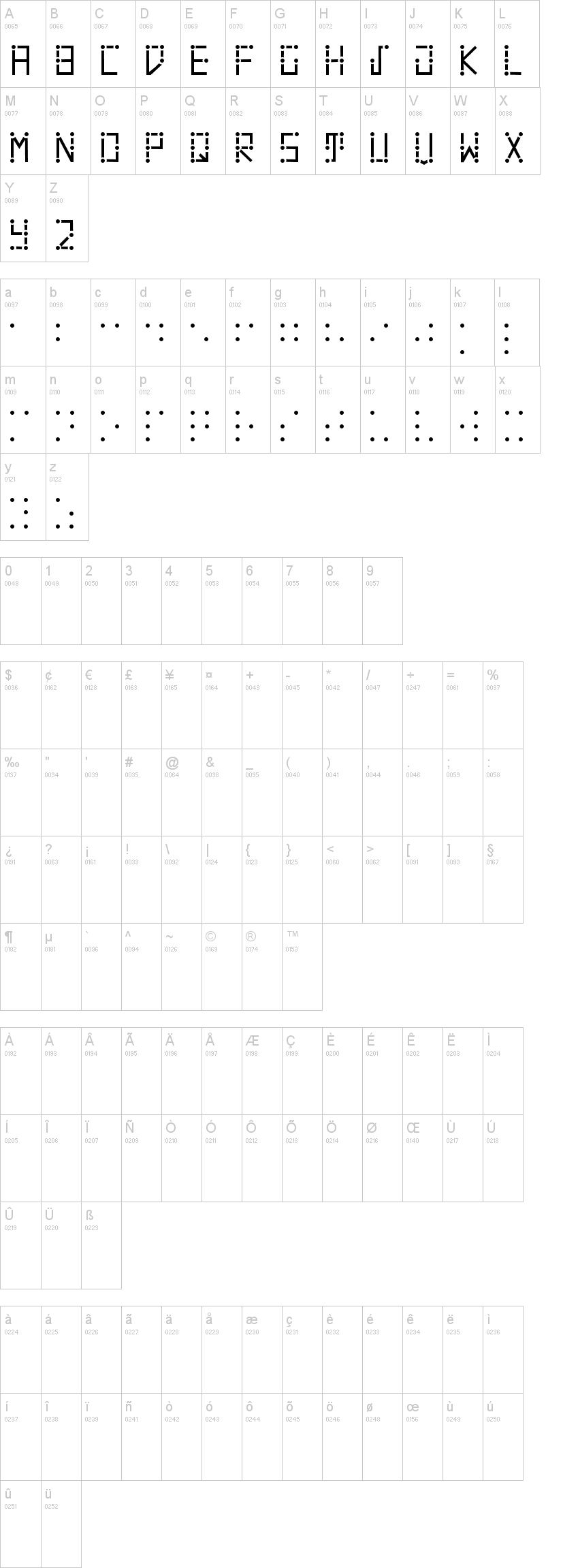
Visual Braille
Uppercase is the VisualBraille and Lowercase the OrignialBraille. You can print a tactile color over the visualbraille with the OrginialBraille.